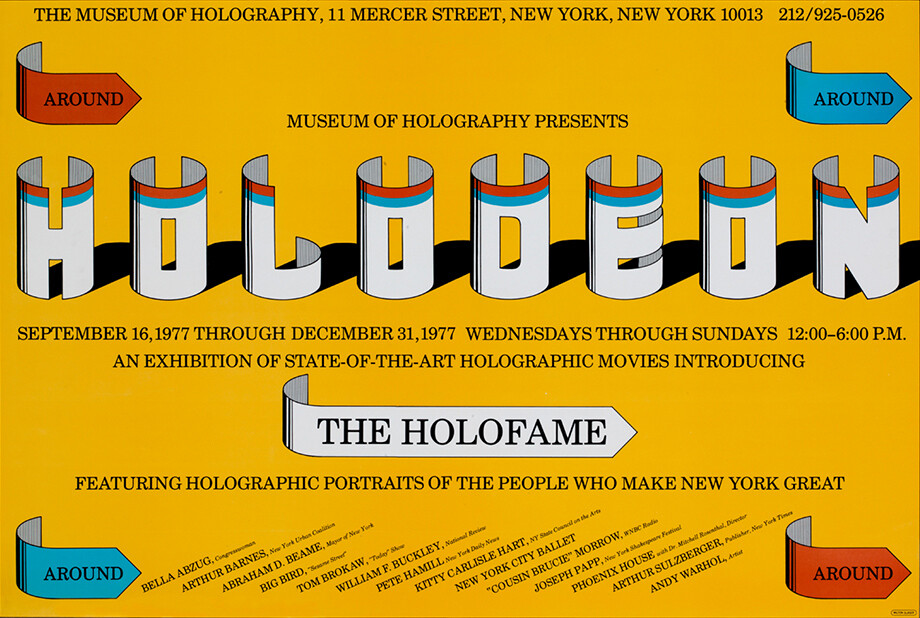
Mad Men design heroes – Milton Glaser
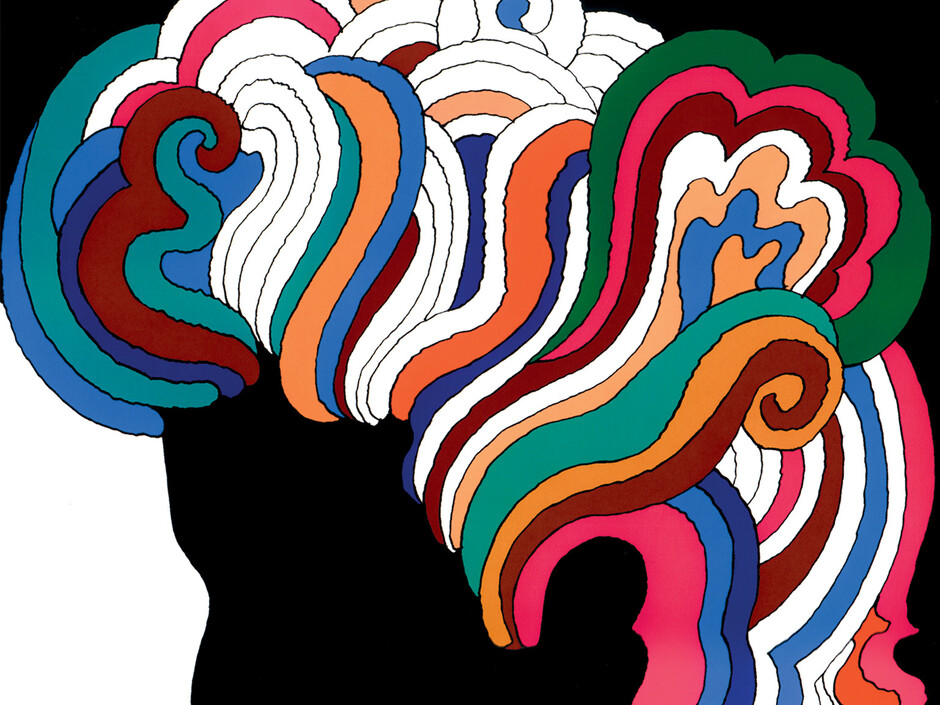
Mad Men design heroes – Milton Glaser
The truth is, I wasn’t an expert on Milton Glaser when I unexpectedly got the chance to spend an hour with him back in 2013. I knew he was responsible for the ‘I Heart NY’ logo, and that he was a towering figure in the history of graphic design.
We sat in his canary yellow meetings room, in the studio on East 32nd street which he had moved into nearly 50 years earlier. Surrounding us were mugs with the ‘I Heart NY’ logo and the post 9/11 ‘more than ever’ version; Brooklyn Brewery bottles; single-handed clocks, framed New York Magazine covers. Most striking of all was a set of four watercolour paintings, sitting on the wall two by two, forming a representation of Piero della Francesca’s 15th century portrait of Federico da Montefeltro.
We chatted for a while and then wandered into the studio – a tidy, welcoming room with lots of books and intriguing paraphernalia pinned to the walls. It felt like a place for making things. The sound of children at playtime drifted up from the school next door, simultaneously building and soundtracking an upbeat, energetic atmosphere.
I was drawn to a series of coloured patterns on the wall. Glaser explained that these were rug designs. He had started working with an Oregon-based carpet company seven years before and the collaboration had led to a 34-piece collection which had been hand-woven and hand-died using traditional methods in Nepal.
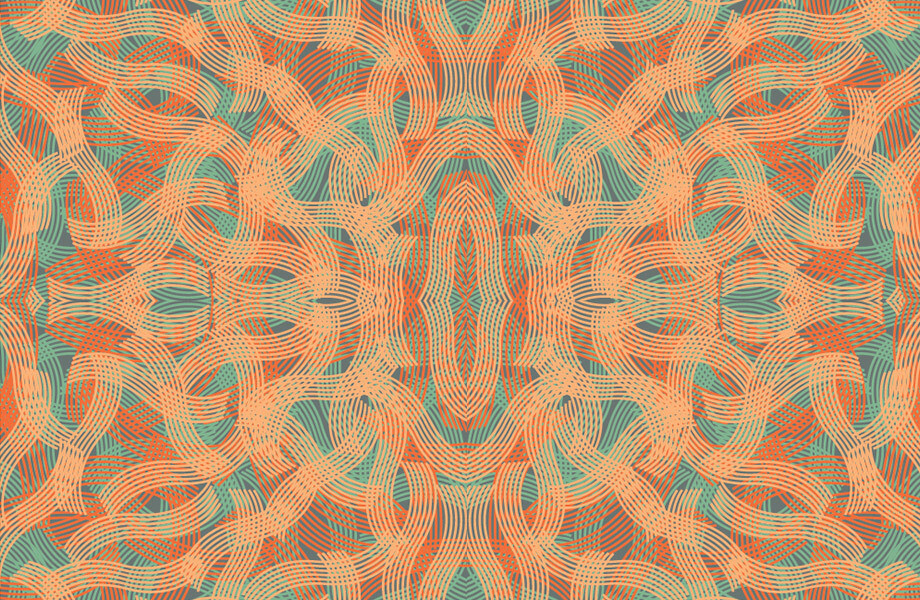
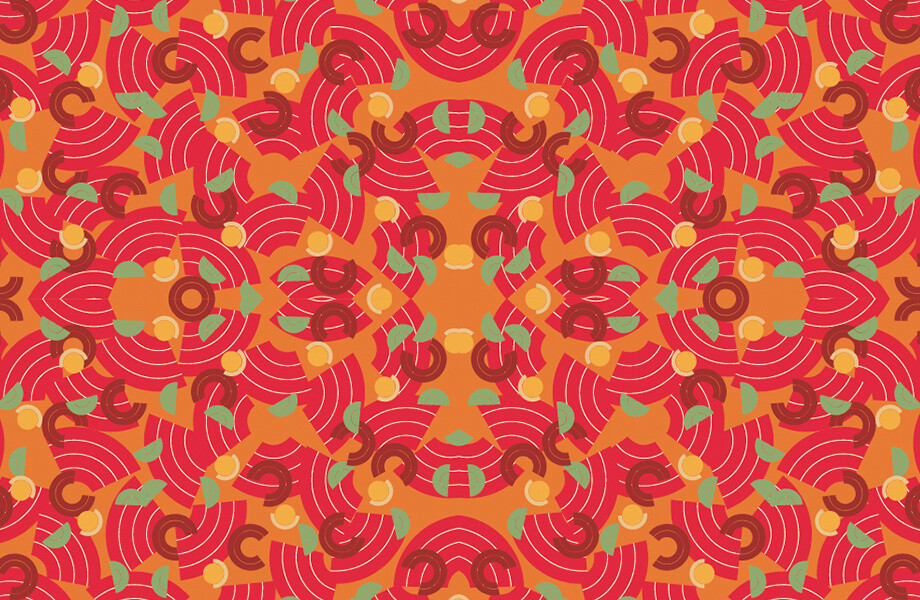
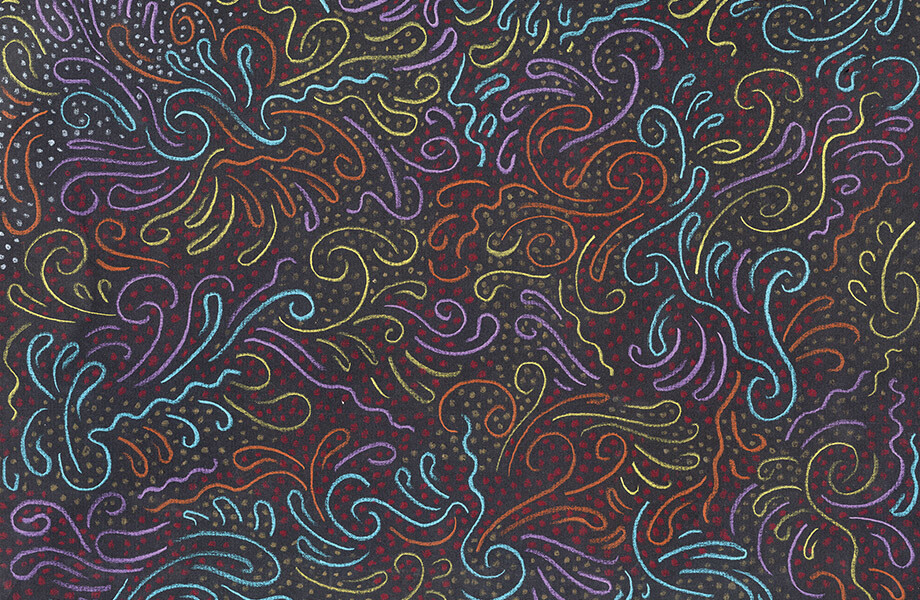
A young designer sat at a computer called up some photos of the rugs. They were gorgeous. I realised later that this project reflected many of the things that made Glaser interesting – it was exemplary of his mission to avoid comfort zones or set styles. Starting this project at 76 years-old, he had patiently developed a feel for the medium, realising that his first designs were too complicated for hand weavers, and learned, for instance, that you could create patterns by looping and cutting knots and changing the way light bounces off the material.
As well as Glaser’s desire to work in new ways, the eclectic set of designs in the rugs spoke of his endless curiosity with the world, and his belief that ‘the whole visual history of the world’ was his resource. The rug designs had elements of Tibetan symbolism, natural forms, grids that looked like computer games, Chinese dragons, and patterns based on bits of torn paper, which looked a bit like Matisse’s late work.
It’s this drawing from the visual history of the world, and especially from art history, that I strongly relate to. The history of art is an endless treasure trove, where an infinite number of styles, techniques and forms of storytelling can be discovered. To borrow Glaser’s phrase, art has the ability to ‘move us to attentiveness’ and so in studying art, we are learning about tried and tested methods for engaging people’s attention.
This curiosity about the artistic world helps me to understand why Glaser’s seven decades or so of work have been so varied. He has designed cultural and political posters, magazines, illustrations for countless publications, newspapers, book covers, logos, record covers, children’s books, drinks identities, supermarket and toy shop identities, restaurants, typefaces, and of course funky clocks and gorgeous rugs. There have also been art projects, like his Piero Project, a big collection of artworks inspired by one of his all time favourites, Piero della Francesca. The show was displayed in the Renaissance artist’s hometown of Arezzo, 500 years after his death.
I love Glaser’s restlessness. He’s right when he says that ‘the great enemy of art is the institutionalisation of belief, like style, or like taste’. By bringing his experience and wisdom to new platforms time after time, he has been able to avoid staleness and to bring fresh perspectives to many creative disciplines.
One of the things that has enabled the scope of Glaser’s career is his love of drawing, and as such, his ability to readily translate ideas to paper. Probably his second most famous piece of work (after the NY logo) is his Bob Dylan poster, where we see a dramatic profile silhouette of the singer – a psychedelic drawing of the voluminous, curly hair, and type spelling out DYLAN, set in Milton’s own Babyteeth typeface. All these elements combine into a superb whole, capturing Dylan’s thoughtful nature, the vibrant glory of his music and the hazy spirit of the times. It’s no surprise to hear that Glaser drew, again, from art history with this piece: a Marcel Duchamp self portrait was his inspiration for the silhouette profile and Islamic painting informed the way he did the hair.
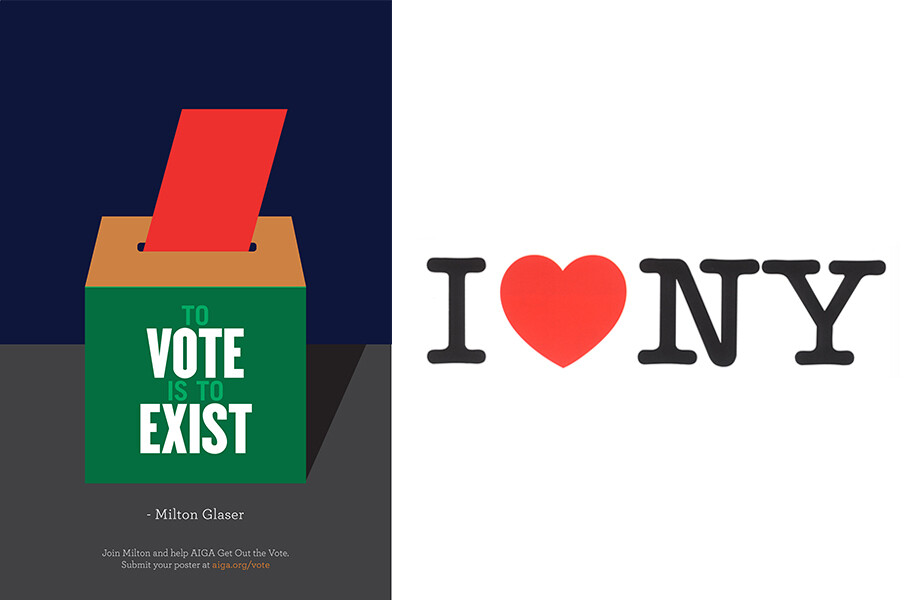
To vote is to exist (left): During the 2016 US election campaign Milton Glaser was one of a number of designers imploring the population to vote. I heart NY (right): Loved since 1977, the logo uses the rounded slab serif ITC American Typewriter (which was never actually a typewriter font).
There is a graceful, fluid, informal quality to much of Glaser’s work, which I love. ‘The creative process is essentially a blind process,’ he says, ‘where you do not pre-structure and you have to allow information to arise in a spontaneous way, uncontrollable by the will.’ He often seems to avoid imposing rules and structures on his work, or at least he comes up with new rules and structures every time. This makes a lot of sense to me. Be as knowledgeable and informed as possible (in general, and about the specific requirements of the project) and then allow the subconscious to play a major role in the creative process. This approach has given rise to all sorts of playful and surprising results in Glaser’s work, like the crazy cylindrical typeface which he drew for a film festival, or the beautiful semi-abstract illustration he did for the record cover of Igor Kipnis and Thurston Dart’s Music For Two Harpsichords.
I’m still not sure you would call me an expert on Milton Glaser, but it was a pleasure to meet this amazing New Yorker. I have loved digging into his story in the years since our meeting. I find myself energised and encouraged by the work he has done and the things he has said. I hope I can carry on working for a few more decades with at least some of his spirit of adventure, thoughtfulness and joy.